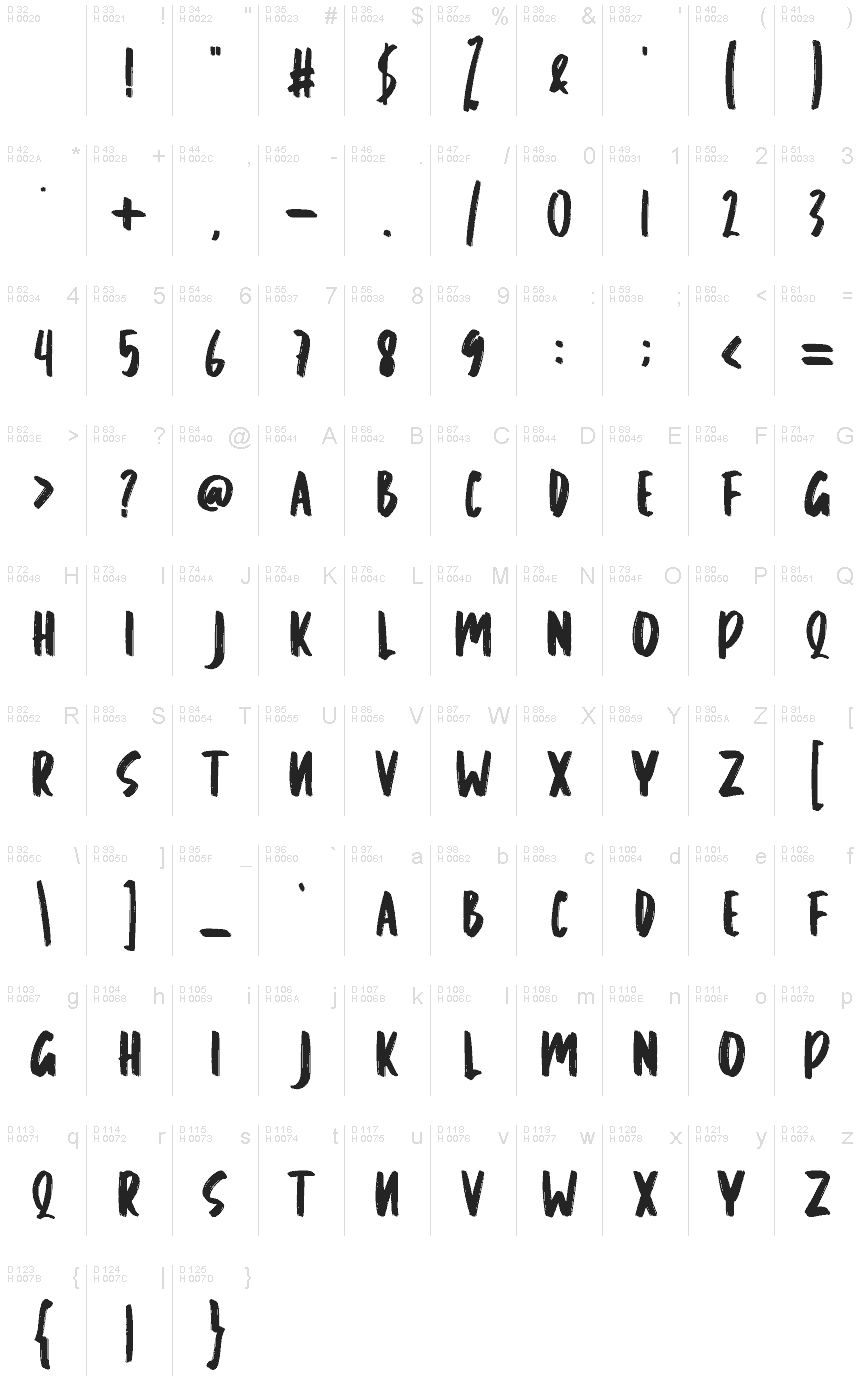
Rotsira
Rotsira font by Skiiller Studio is a brush font with an outstanding hand-drawn appearance. The expressive character of the condensed width font is unparalleled, and it stems from its raw aesthetic and artistic flair. The text presented also gets a textured finish that will accentuate the message its audience receives.